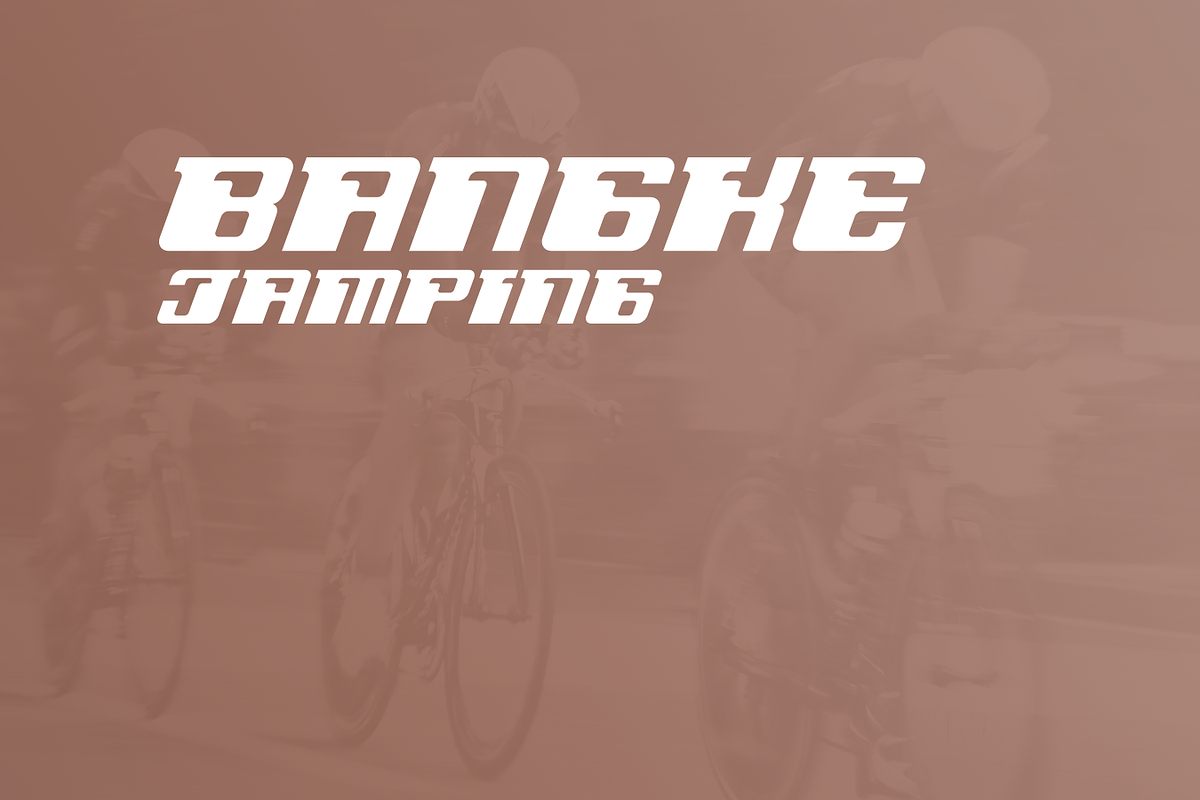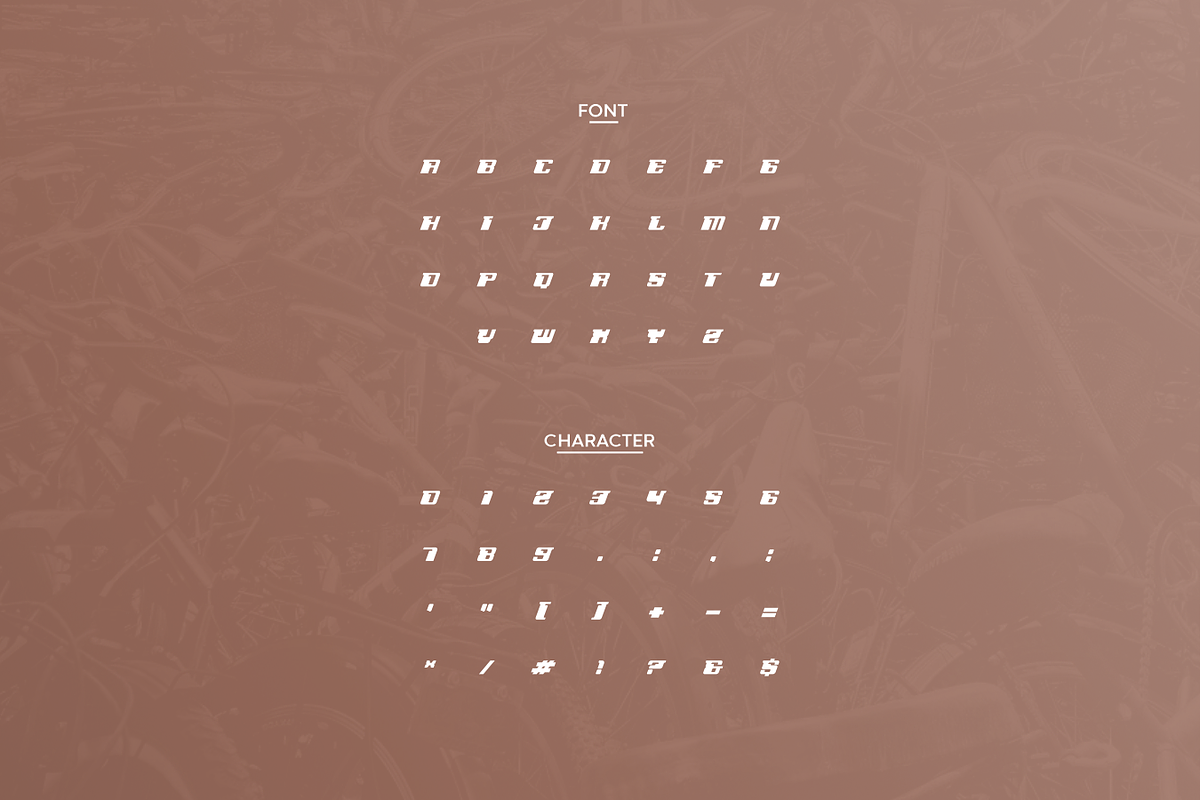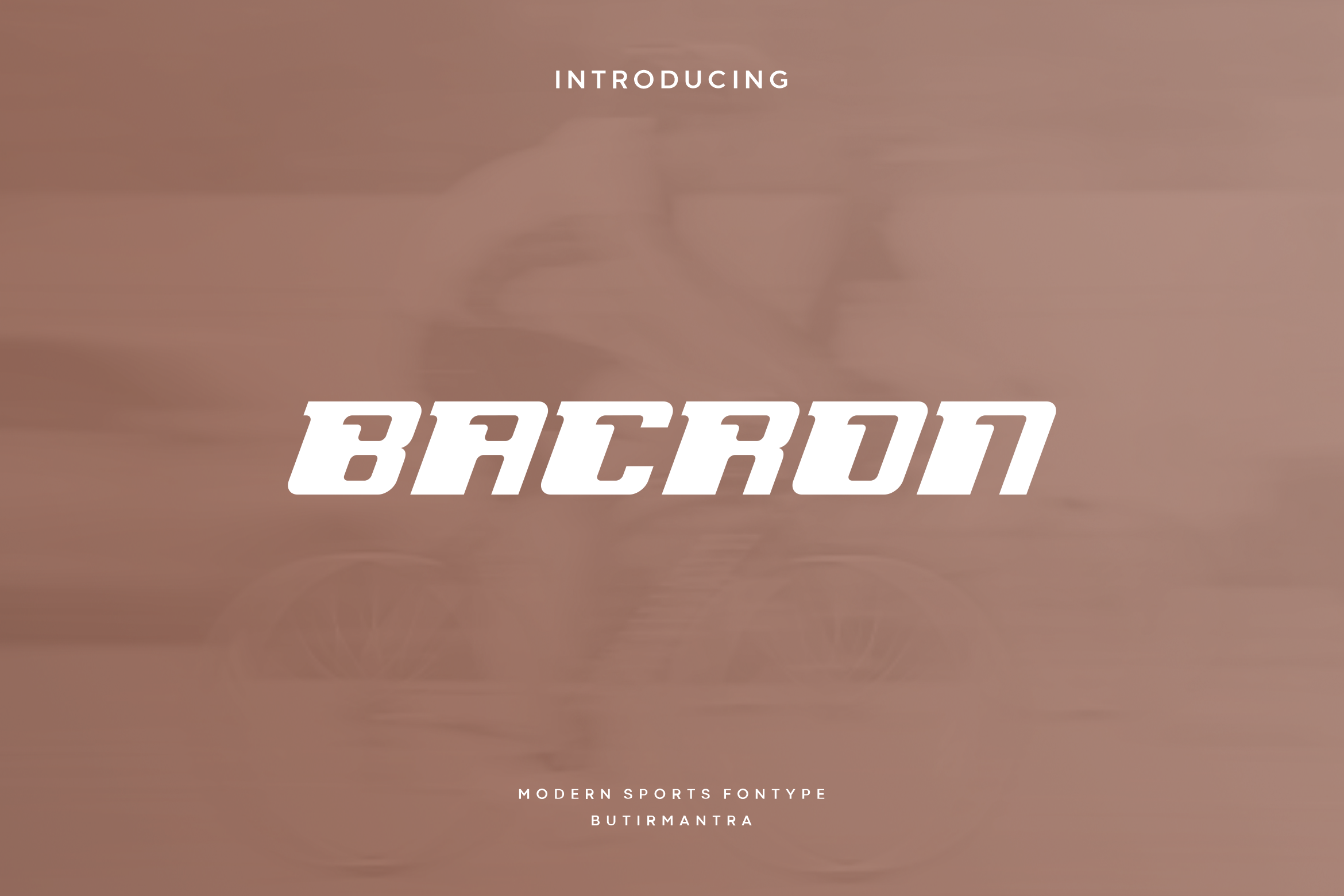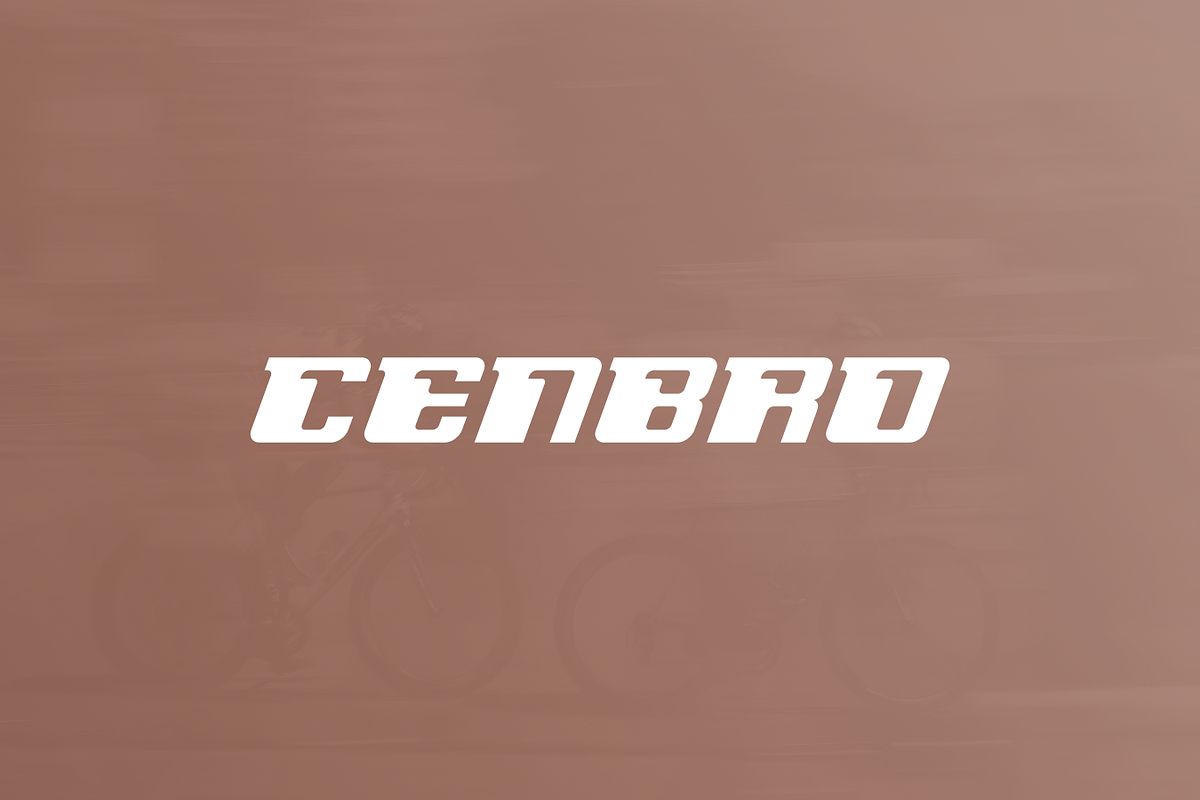
Bacron - Modern Sport Typeface
Bacron it’s bold font with a fast style, with softened corners and some slope for dynamic effect. Bacron font has a unique charm and easy visual readability, so it’s perfect for headlines, whether for sports events, automotive posters, logo or monograms designs.